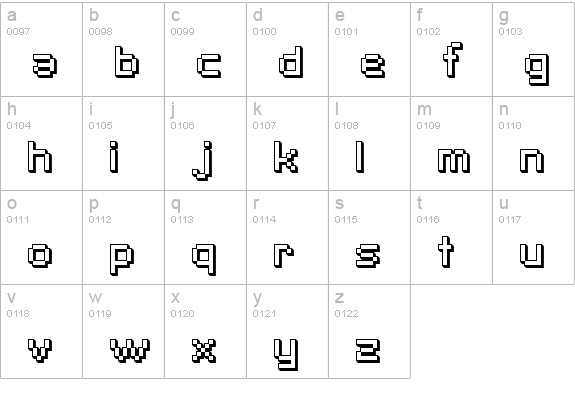
SF Pixelate Shaded Font Details
SF Pixelate Shaded is a captivating and dynamic font that will bring a touch of modernity to any design project. Its unique pixelated design adds a sense of digital sophistication, making it perfect for various applications such as logos, headlines, posters, and more. This font features a shaded effect, giving it a three-dimensional appearance that adds depth and dimension to your typography. The carefully crafted shading creates a stunning visual impact, making your text stand out and grab attention. SF Pixelate Shaded is not only visually striking but also highly versatile. Its clean and crisp lines make it readable even at small sizes, ensuring legibility across different platforms and devices. Whether you're working on a website, mobile app, or print design, this font will deliver exceptional results. One of the best things about SF Pixelate Shaded is that it is free! Yes, you read that right. This font is available to download for free at FontsMarket.com. You can easily access this font and start incorporating it into your projects without any cost. With SF Pixelate Shaded, you have the freedom to explore your creativity and experiment with different design concepts. Its modern and edgy style opens up a world of possibilities, allowing you to create stunning visuals that leave a lasting impression. So don't miss out on this incredible opportunity to enhance your designs with SF Pixelate Shaded. Download it for free at FontsMarket.com and take your typography game to the next level.